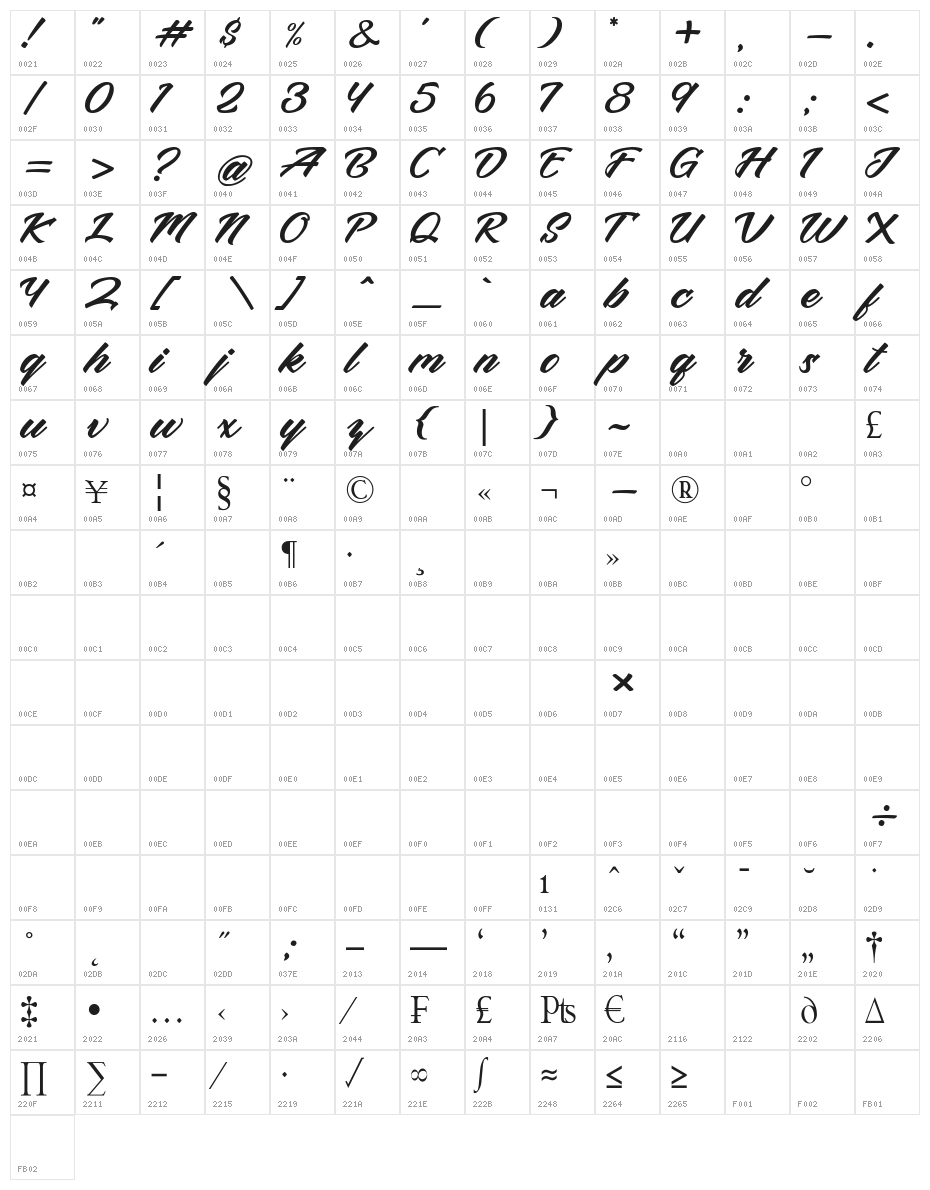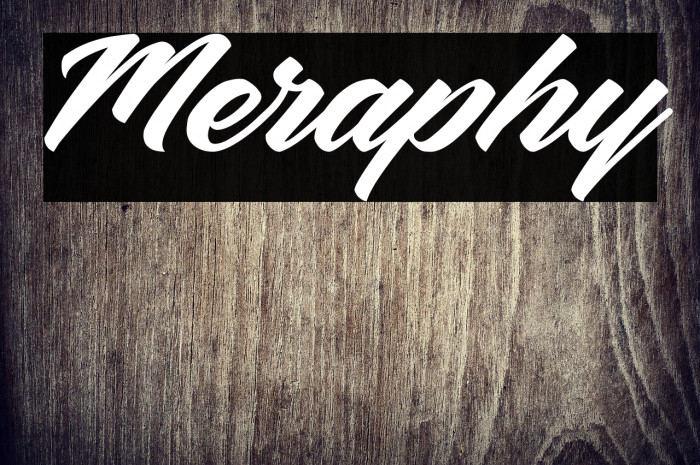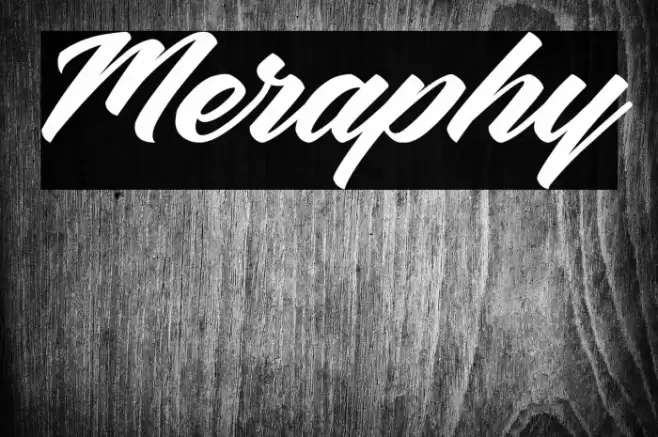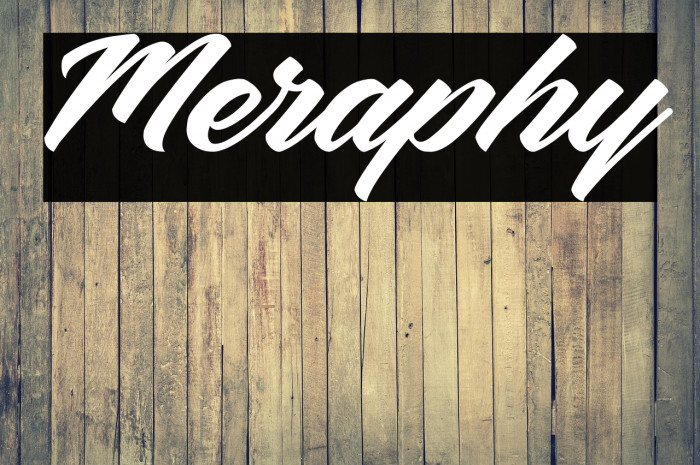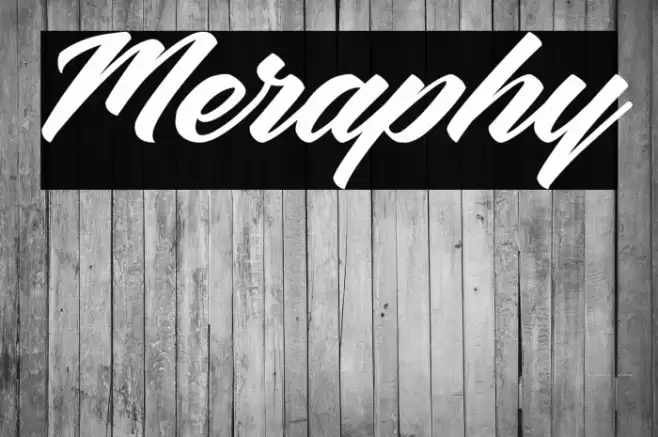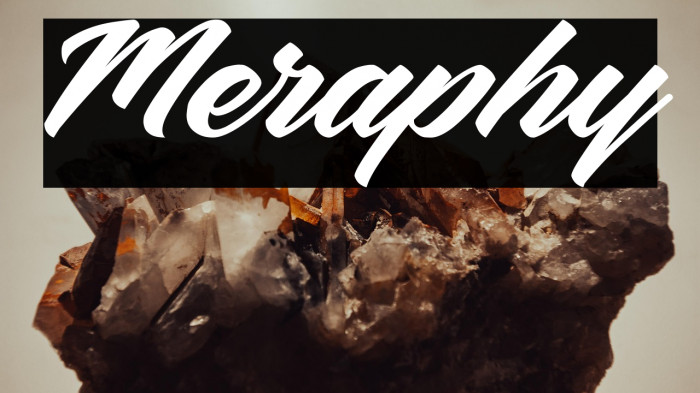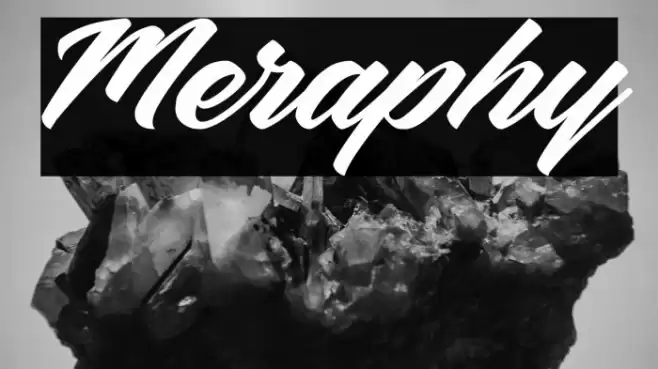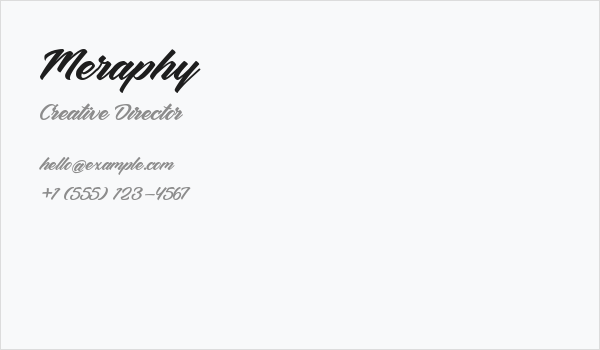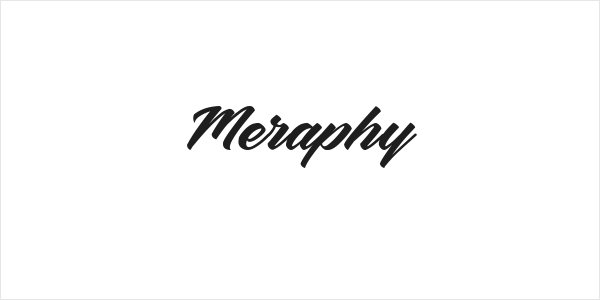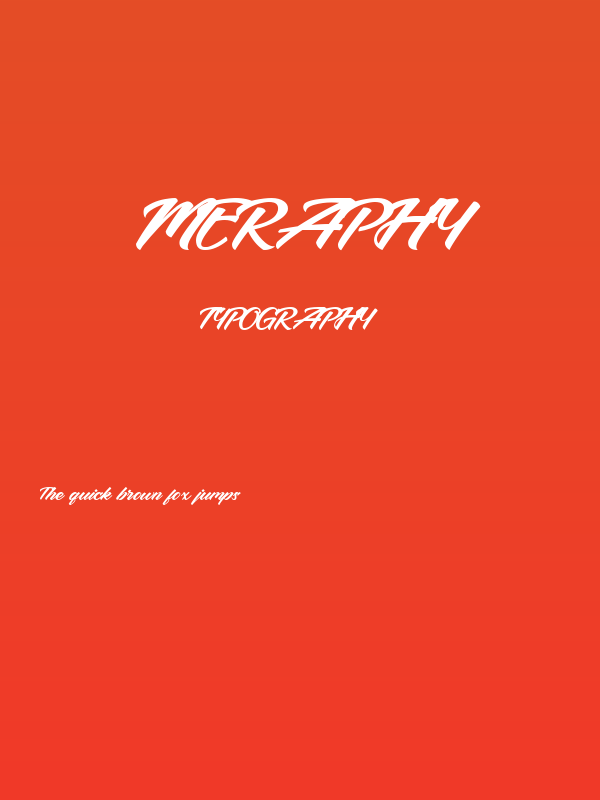
Meraphy Font
Meraphy Description
This font features a bold and expressive script style, characterized by its flowing, cursive letterforms. The strokes are thick and consistent, giving it a strong presence. The uppercase letters are elegantly designed with sweeping curves and sharp angles, while the lowercase letters maintain a smooth, connected flow. Numbers and special characters are crafted with the same attention to detail, ensuring a cohesive look across all elements. This font exudes a sense of elegance and sophistication, making it suitable for projects that require a touch of class and flair.